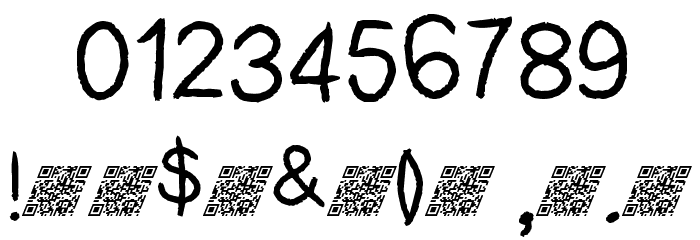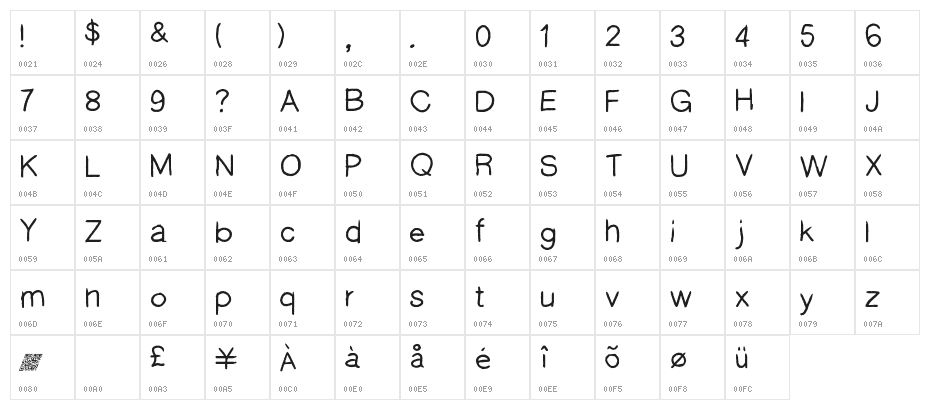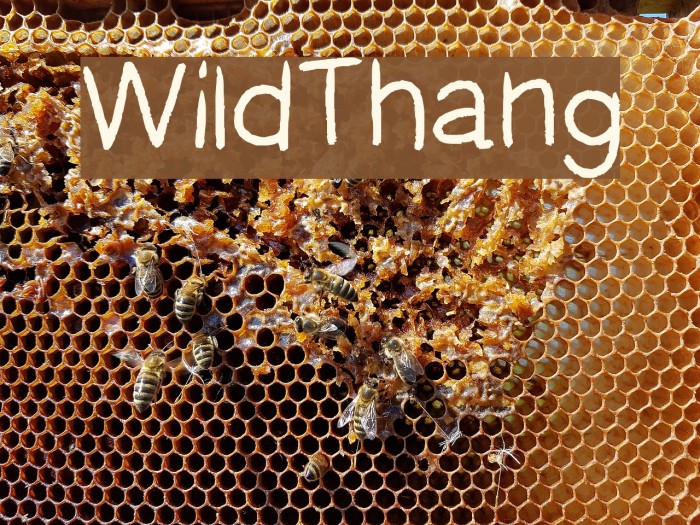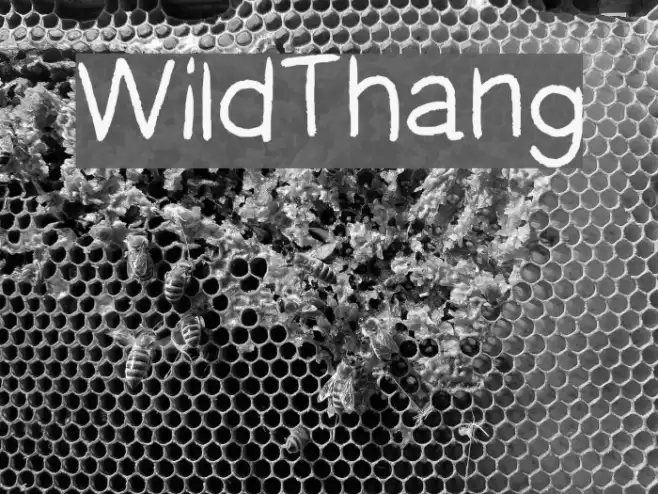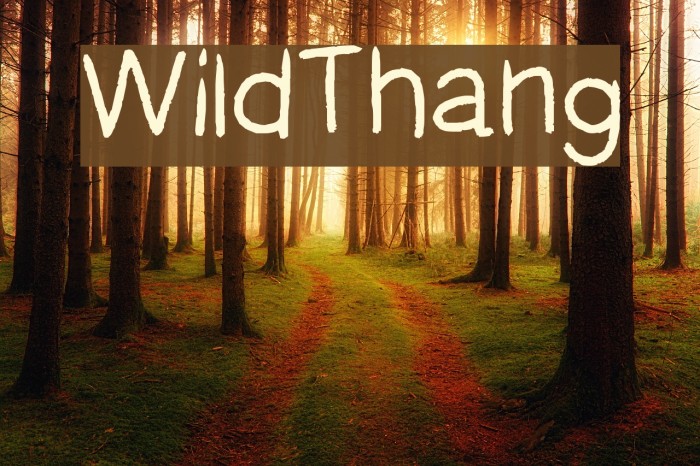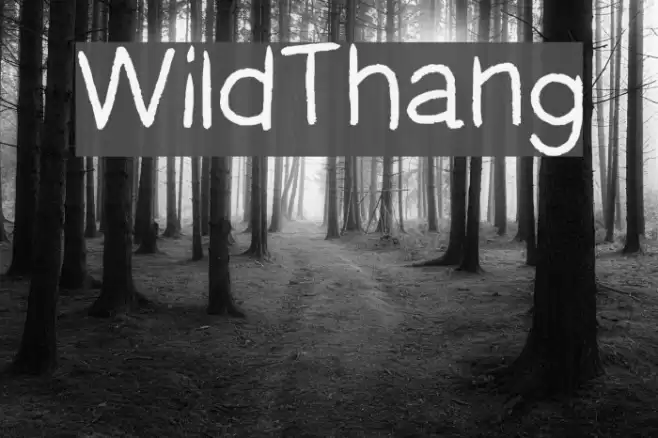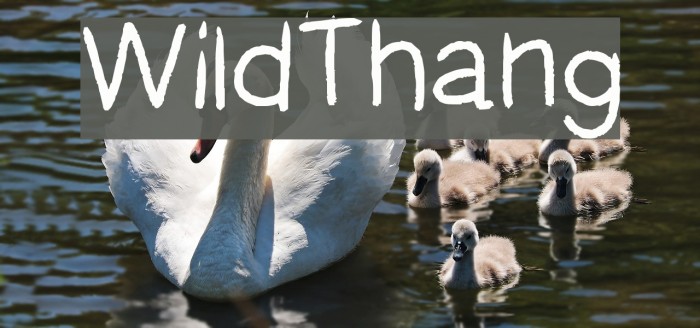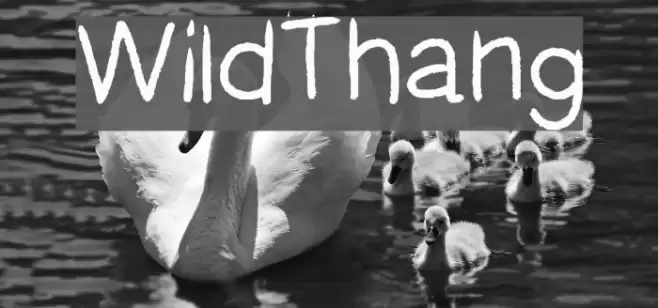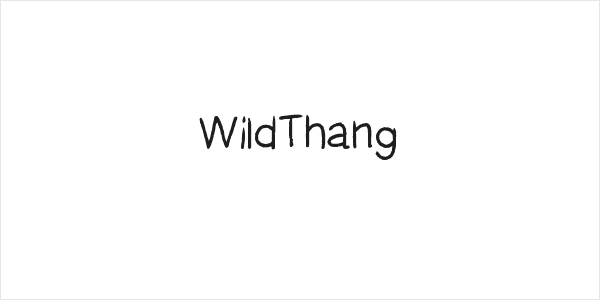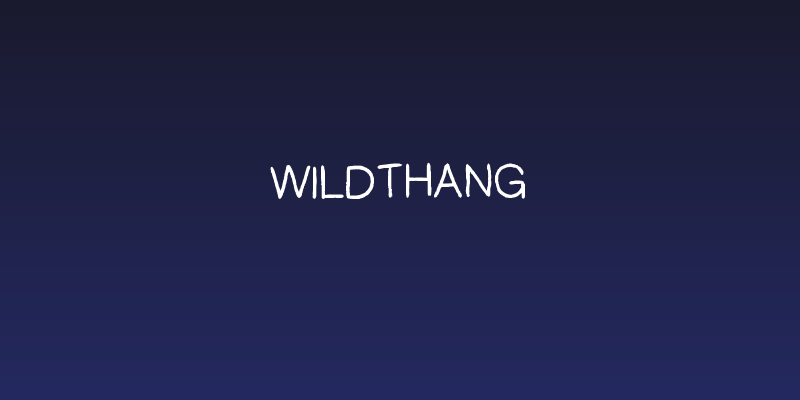
WildThang Font
WildThang Description
This font features a playful and casual handwritten style, characterized by its irregular strokes and slightly uneven baseline. The letters have a natural, organic feel, with rounded edges and a slight tilt that adds to its informal charm. The uppercase and lowercase letters maintain a consistent style, while the numerals and special characters blend seamlessly with the overall design. This font exudes a sense of spontaneity and creativity, making it ideal for projects that require a personal touch.